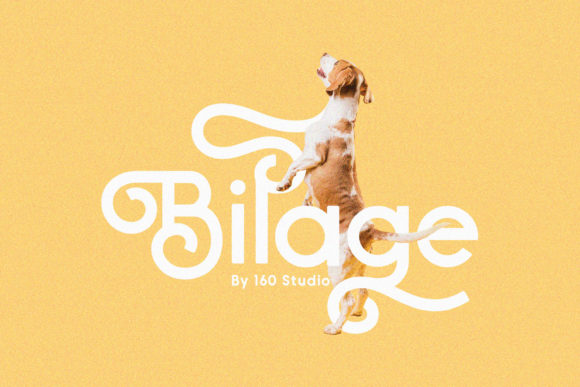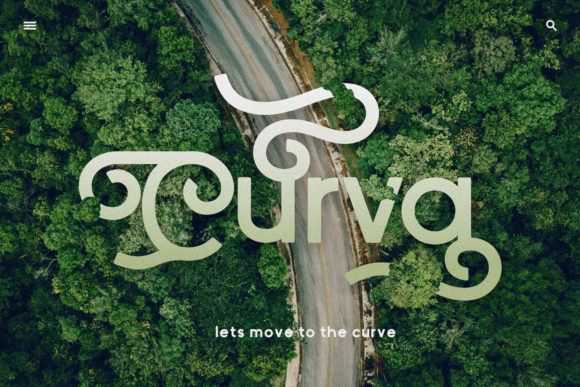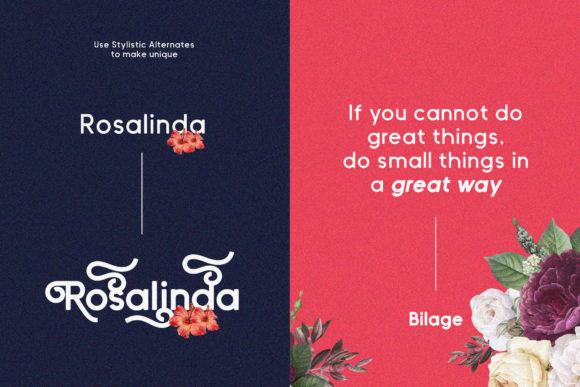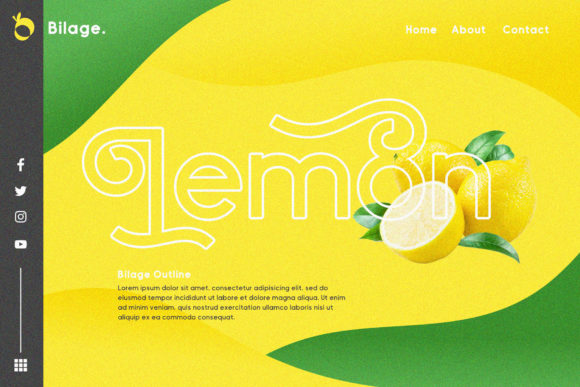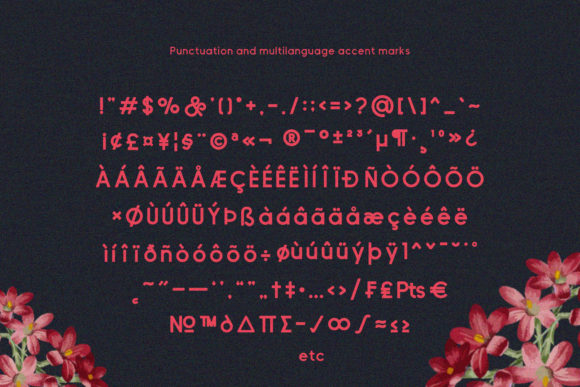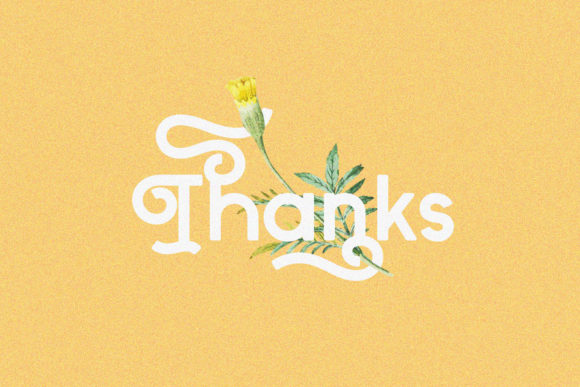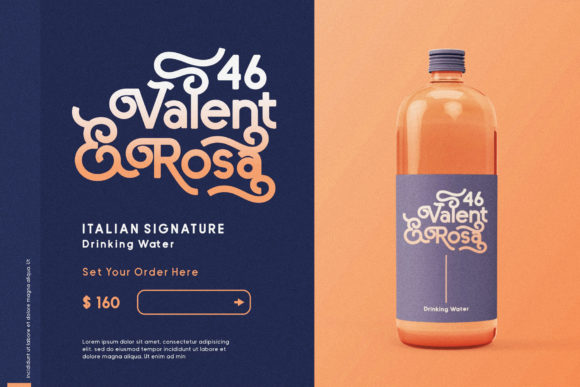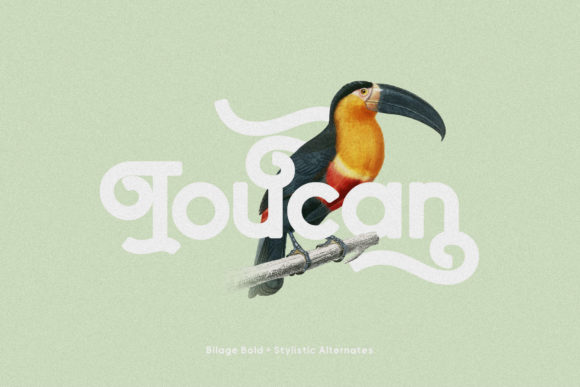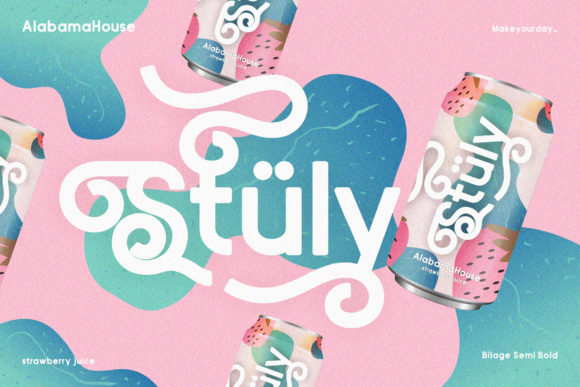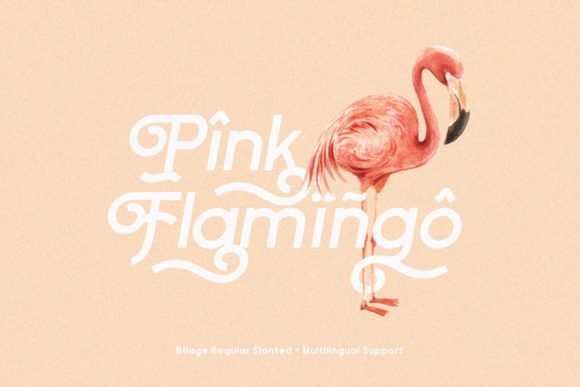
Bilage Font
About Bilage Font
Bilage is a gorgeous handwritten font. Its natural charm will brighten up a wide variety of projects, from stationery to greeting cards.